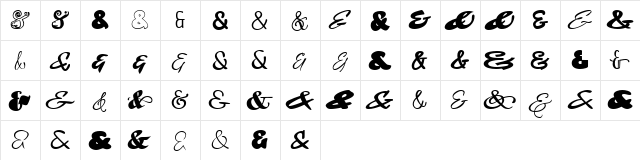
AmpersandCollection Regular
Design Context for AmpersandCollection Typeface
AmpersandCollection is a composed and adaptable typeface that performs quietly and consistently across a wide range of design contexts.